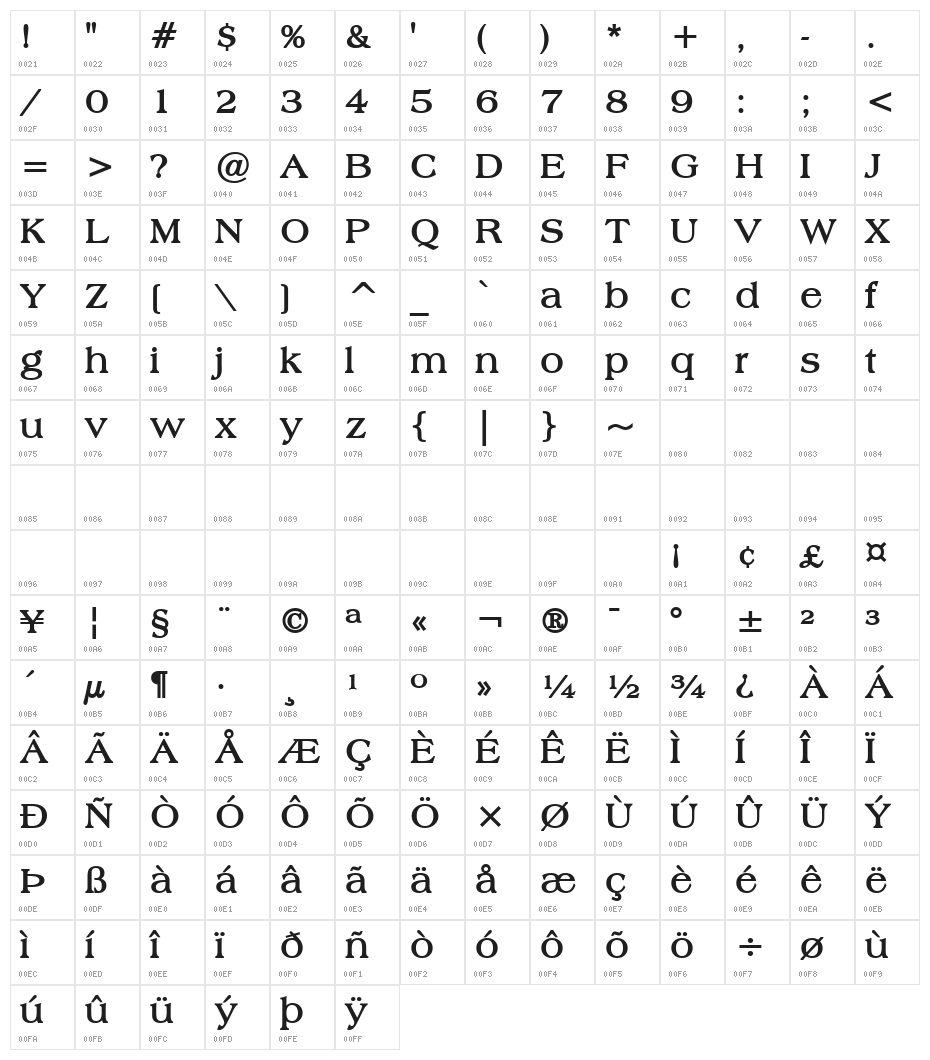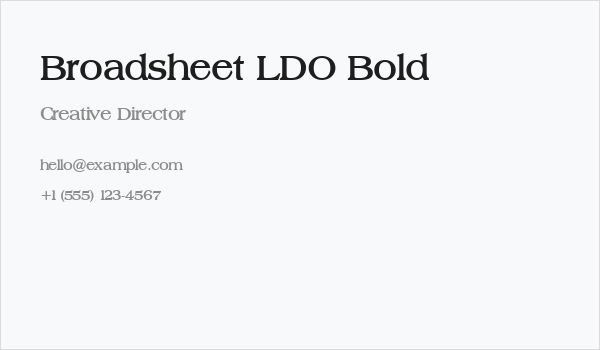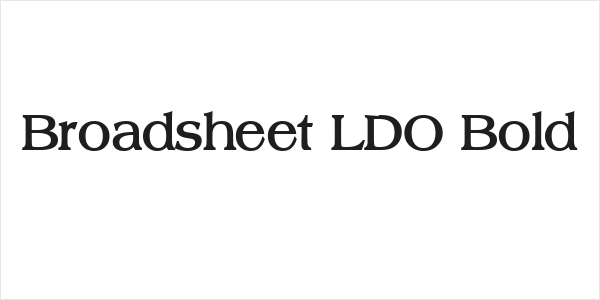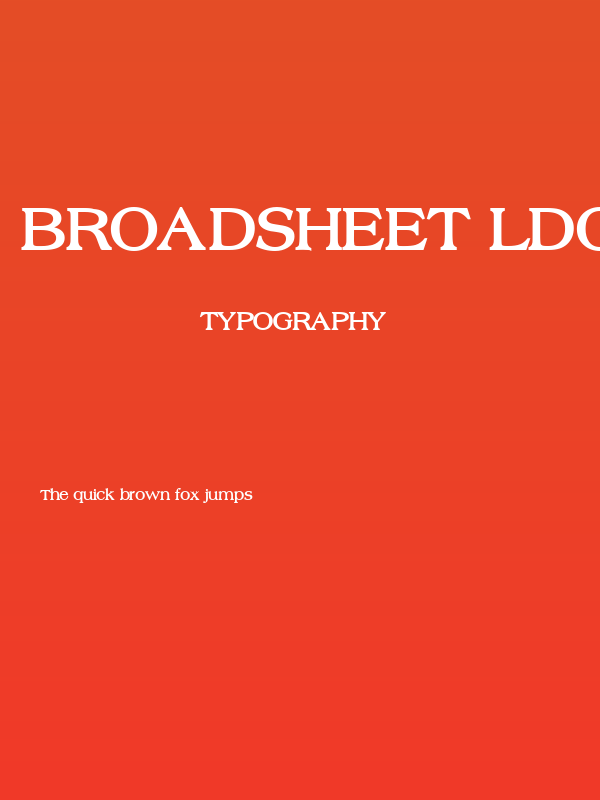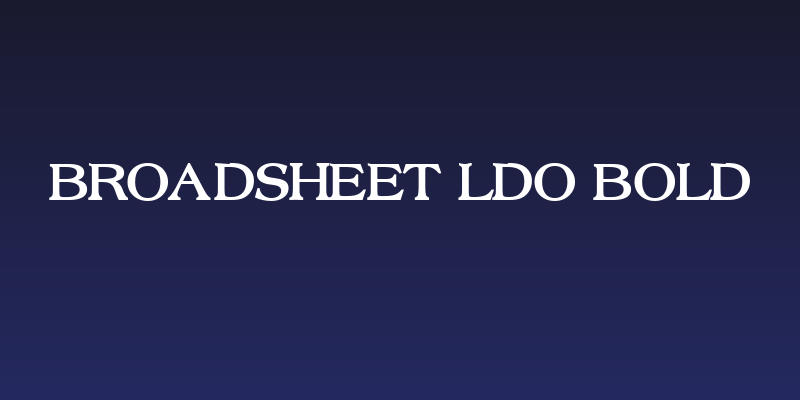
Broadsheet LDO Bold Font
Broadsheet LDO Bold Description
This font features a bold and authoritative serif style, characterized by its strong and pronounced serifs that give it a classic and traditional appearance. The letters are well-defined with a moderate contrast between thick and thin strokes, enhancing readability while maintaining an elegant aesthetic. The uppercase letters exhibit a commanding presence, while the lowercase letters maintain a harmonious balance, making it suitable for both display and text purposes. The numerals are clear and consistent, and the special characters are designed to complement the overall style, ensuring versatility in various design contexts.
| Proposed Projects | Ideal for newspaper headlines, editorial design, book covers, and formal invitations. |